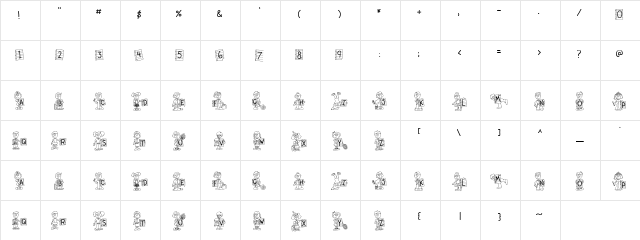
LD Smart Kidz Regular
Design Context for LD Smart Kidz Typeface
LD Smart Kidz is a composed and adaptable typeface that performs quietly and consistently across a wide range of design contexts.